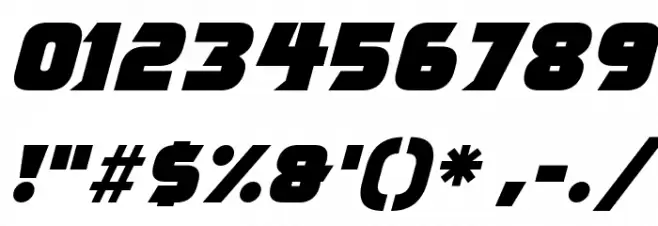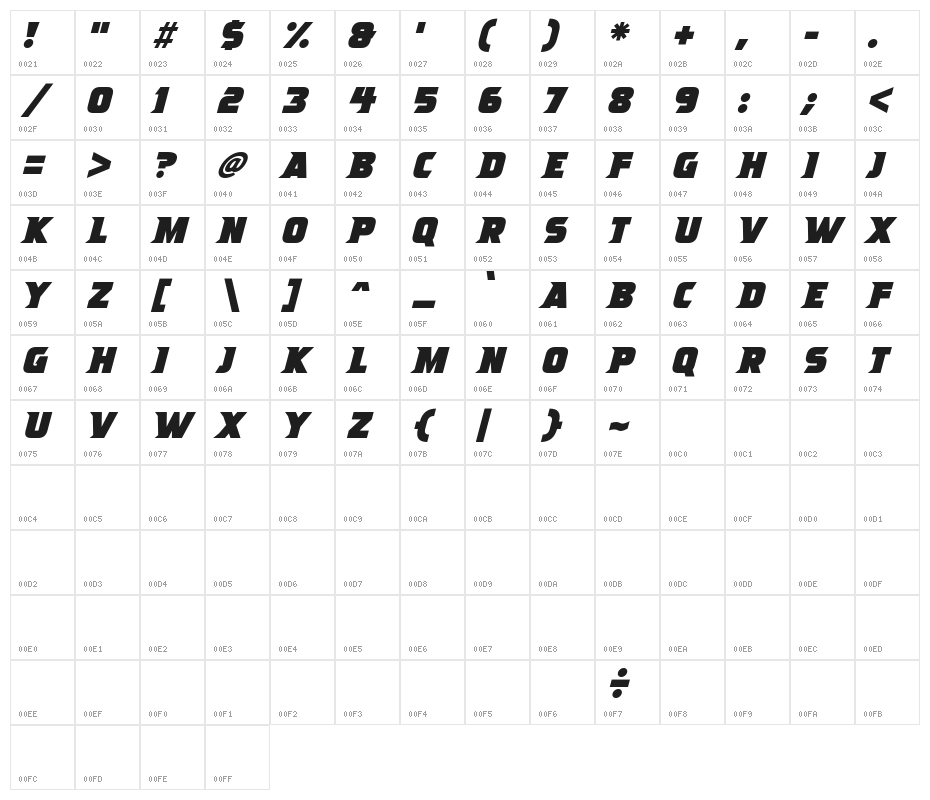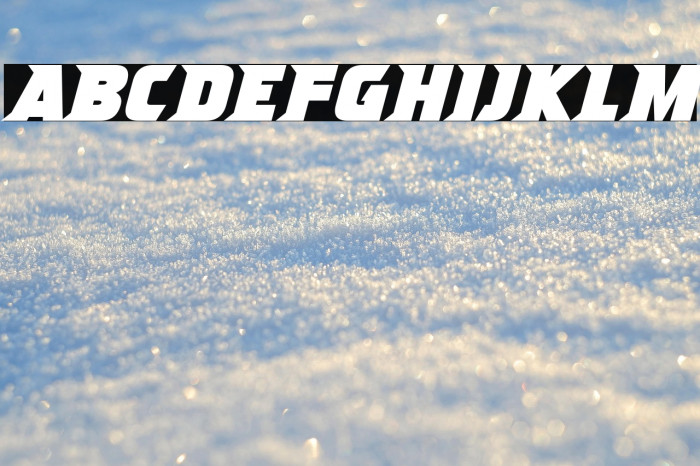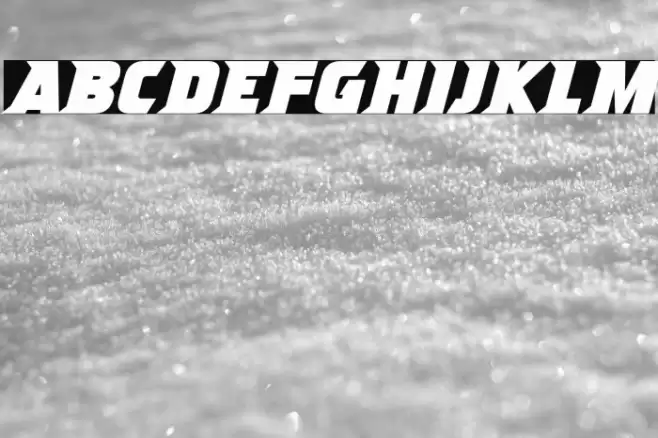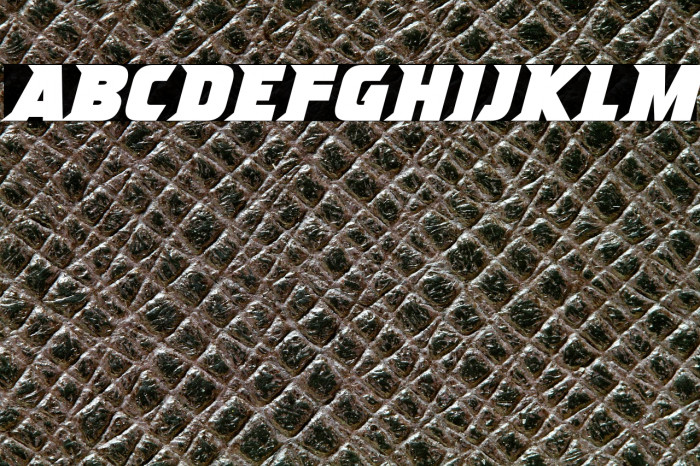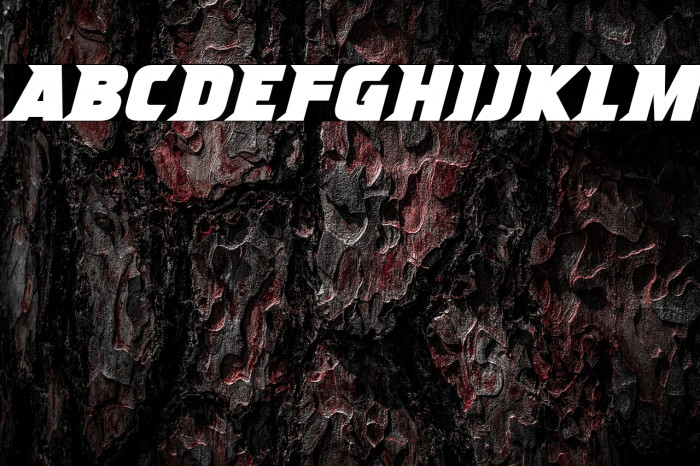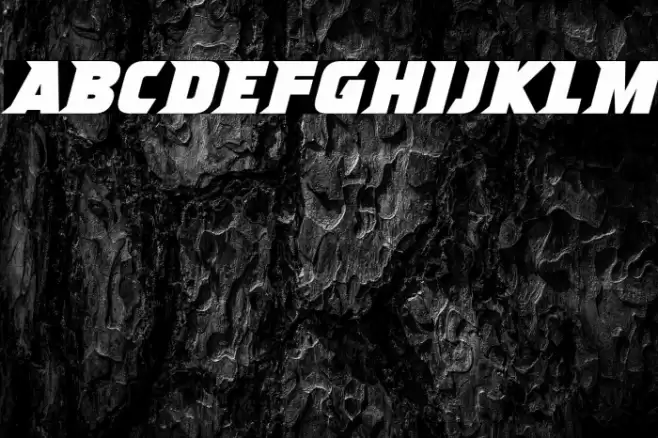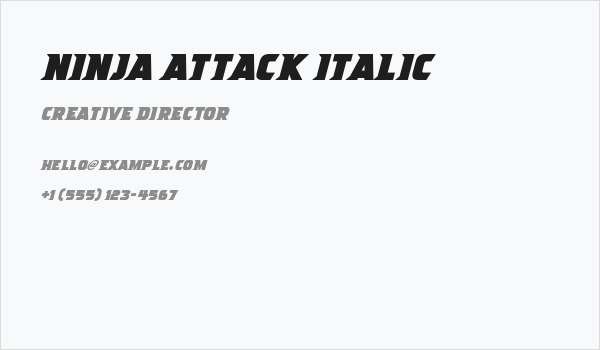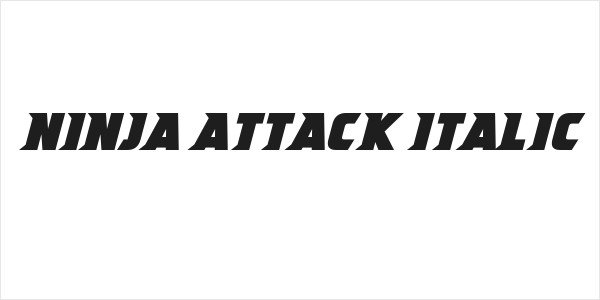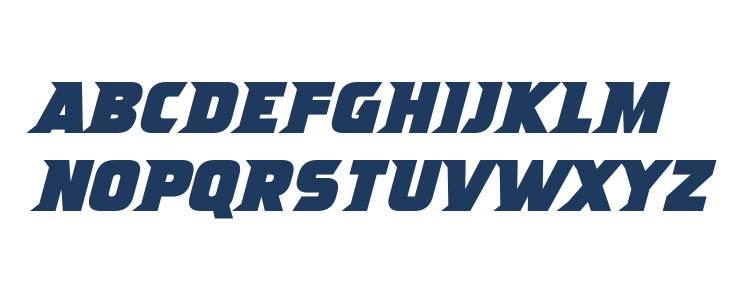
Ninja Attack Italic Font
Ninja Attack Italic Description
This font features a bold and dynamic style with a strong italic slant, giving it a sense of movement and energy. The characters are robust and angular, with sharp edges and a slightly condensed form. This design choice enhances its aggressive and impactful appearance, making it suitable for attention-grabbing headlines or titles. The uppercase and lowercase letters maintain a consistent style, while the numerals and special characters complement the overall aesthetic. The font's bold weight and italic nature contribute to its striking presence, ideal for projects that require a powerful visual statement.